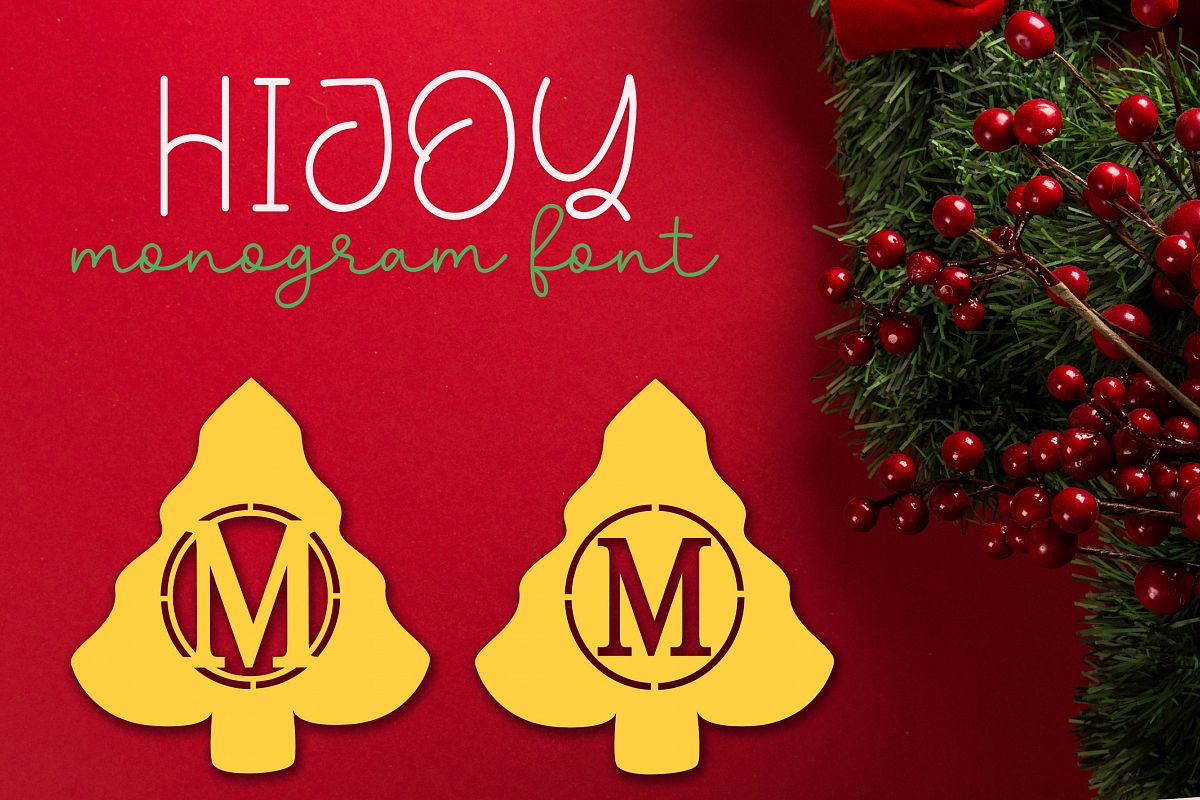
Hijoy | Monogram Font Christmas
Let me introduce you. Hijoy Monogram Font Christmas edition. This font is perfect for your design with a Christmas theme. suitable for cutting, for lightning or for greeting cards.